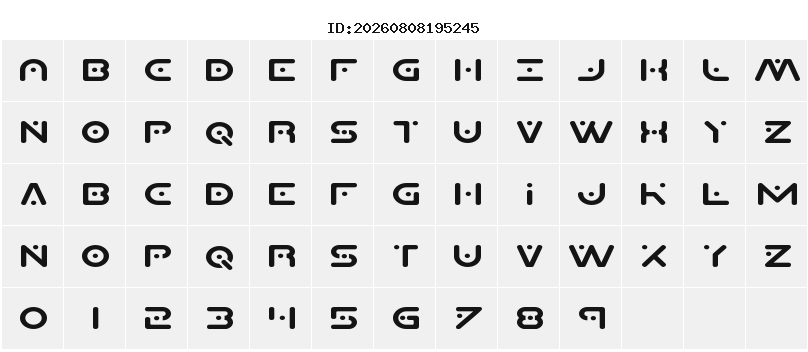
About Planet X Compact Expanded.ttf
Planet X Compact Expanded.ttf is a modern, elegant sans-serif font designed for ultimate readability and visual harmony. Perfect for branding, headlines, web design, and print materials.